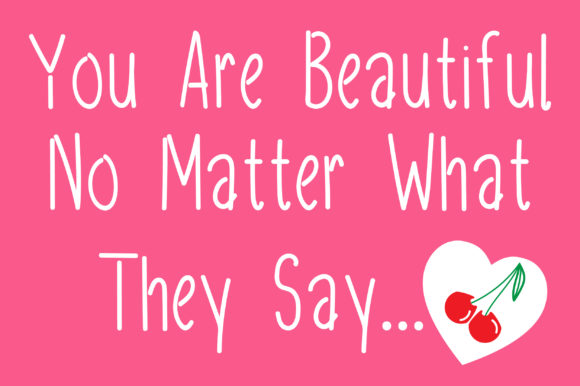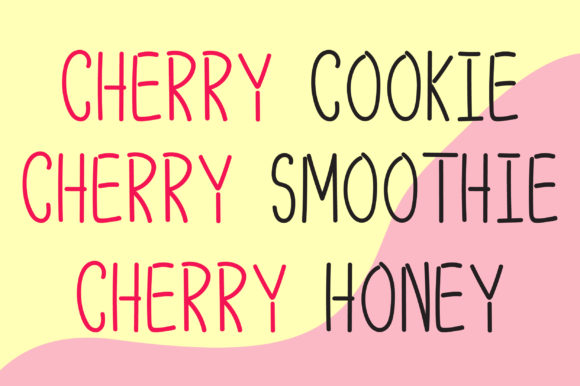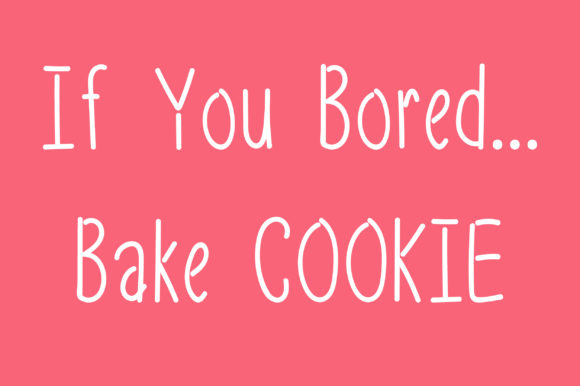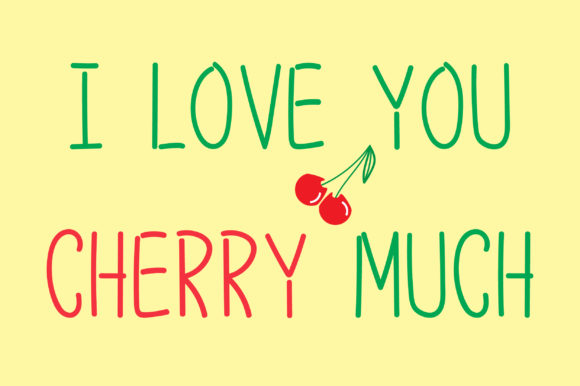
Cherry Cookie Font
About Cherry Cookie Font
Cherry Cookie is a cute handwritten font with a cheerful feel. Whether you’re looking for fonts for Instagram or calligraphy scripts for DIY projects, Cherry Cookie will turn any creative idea into a true piece of art!